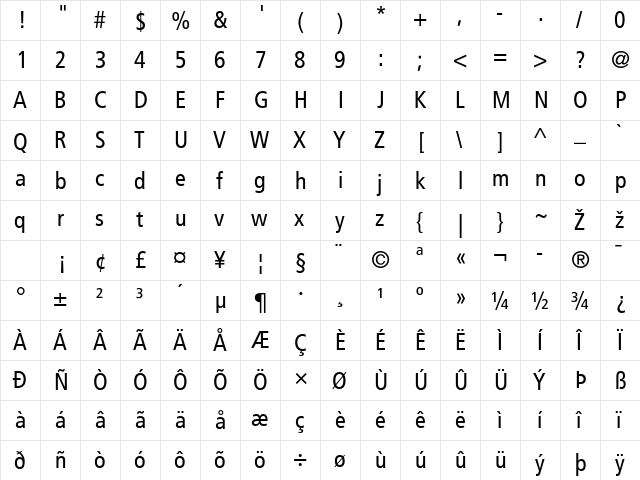
Frutiger LT 57 Cn Regular
| Designer | Adrian Frutiger |
Design Context for Frutiger LT 57 Cn Typeface
Frutiger LT 57 Cn takes a measured approach to typography — its balanced proportions and neutral character make it a reliable workhorse for both digital and print work. Its slender proportions lend an understated elegance to any composition.